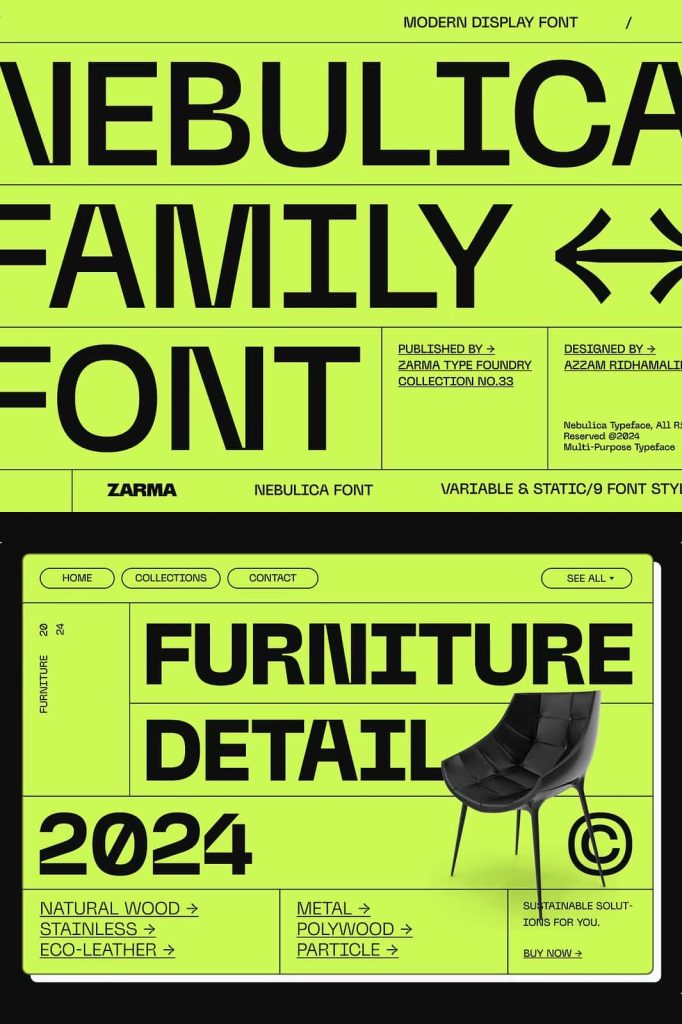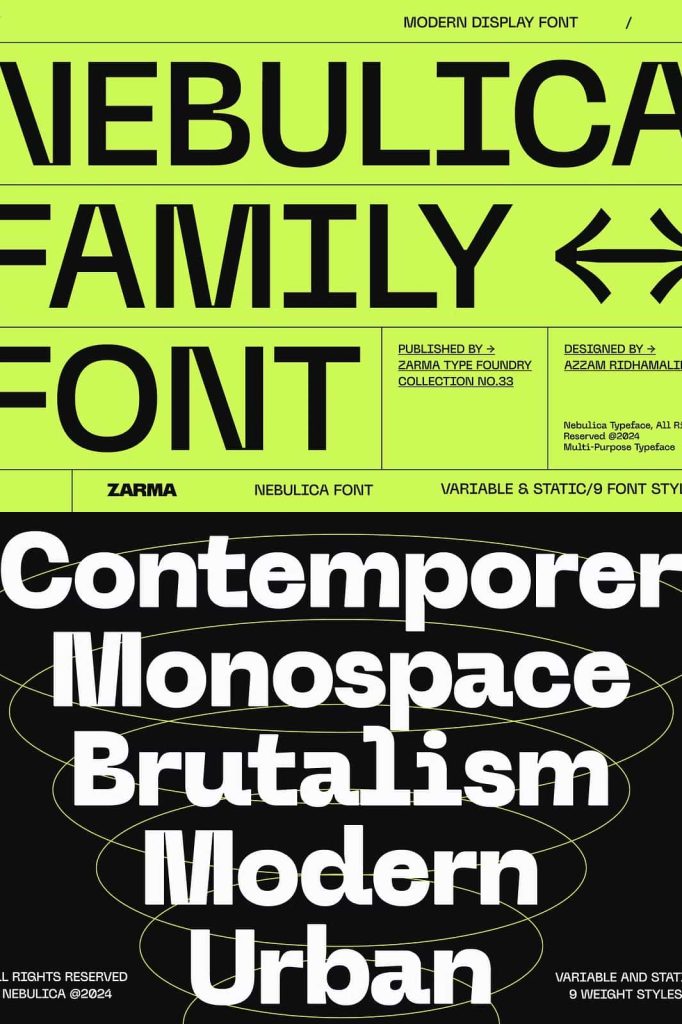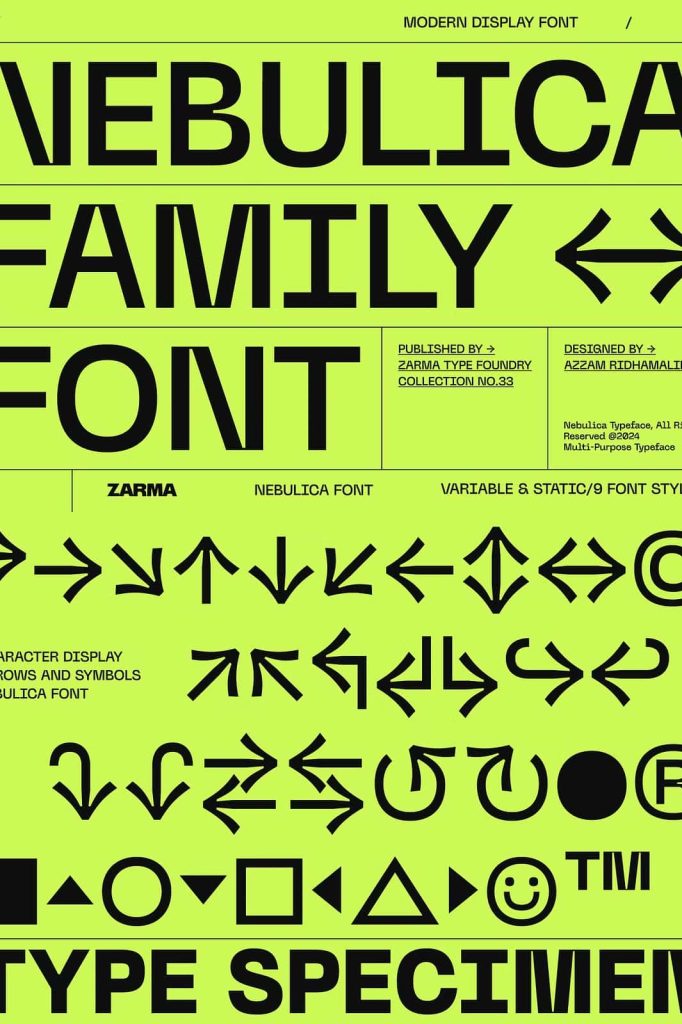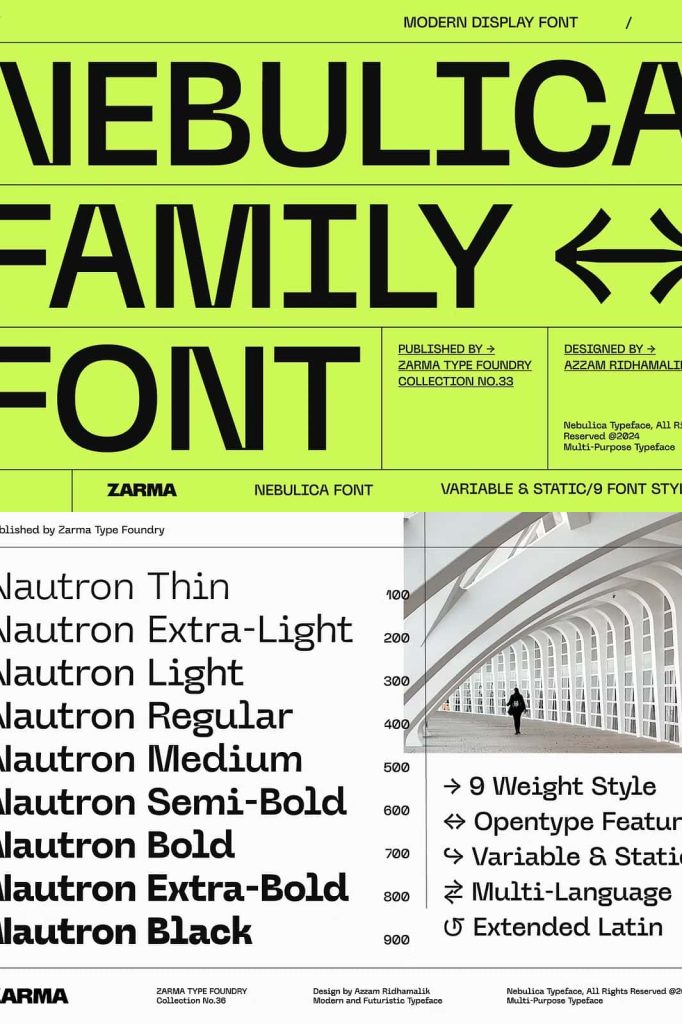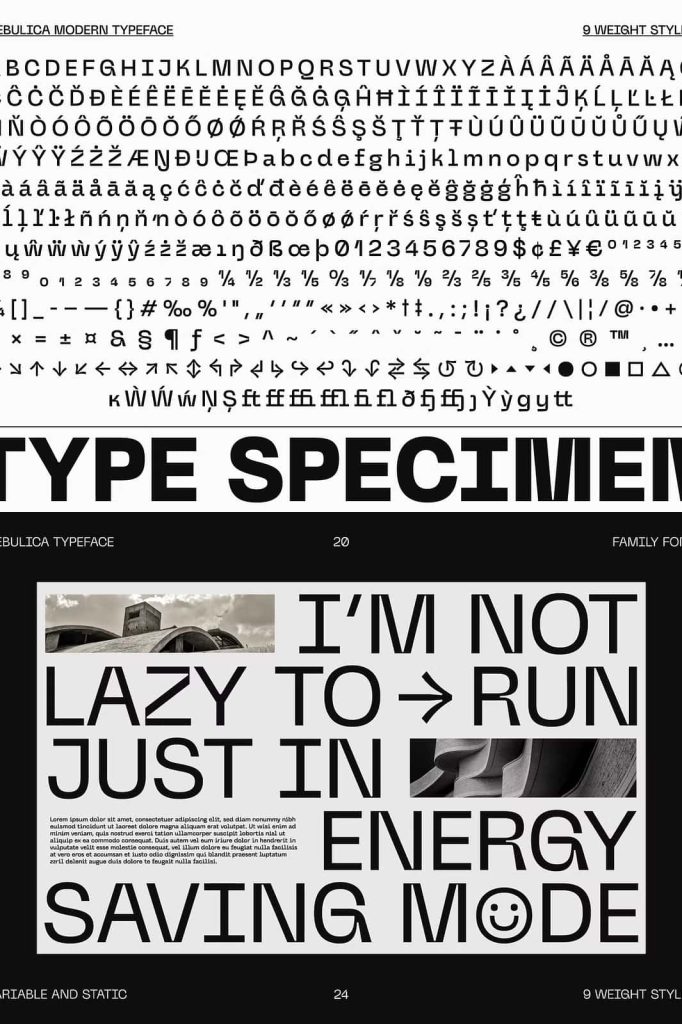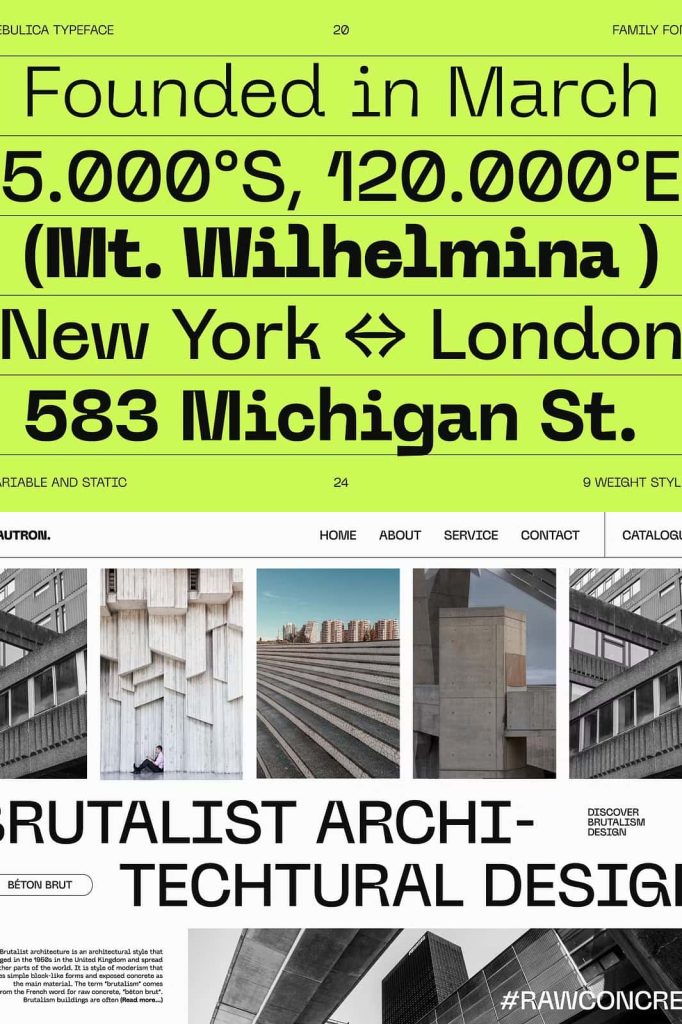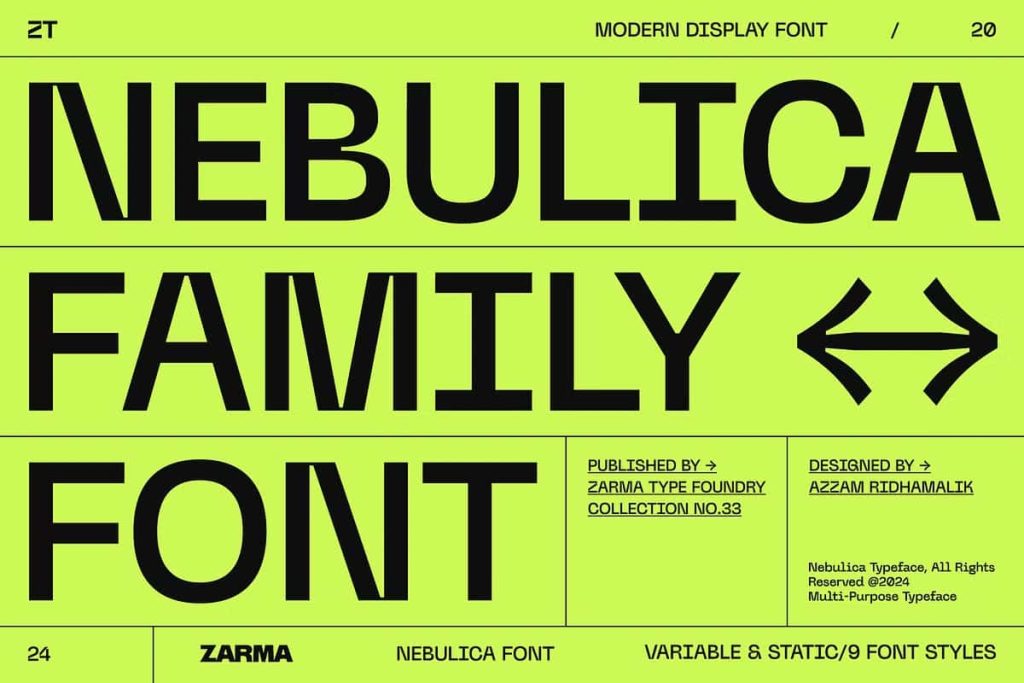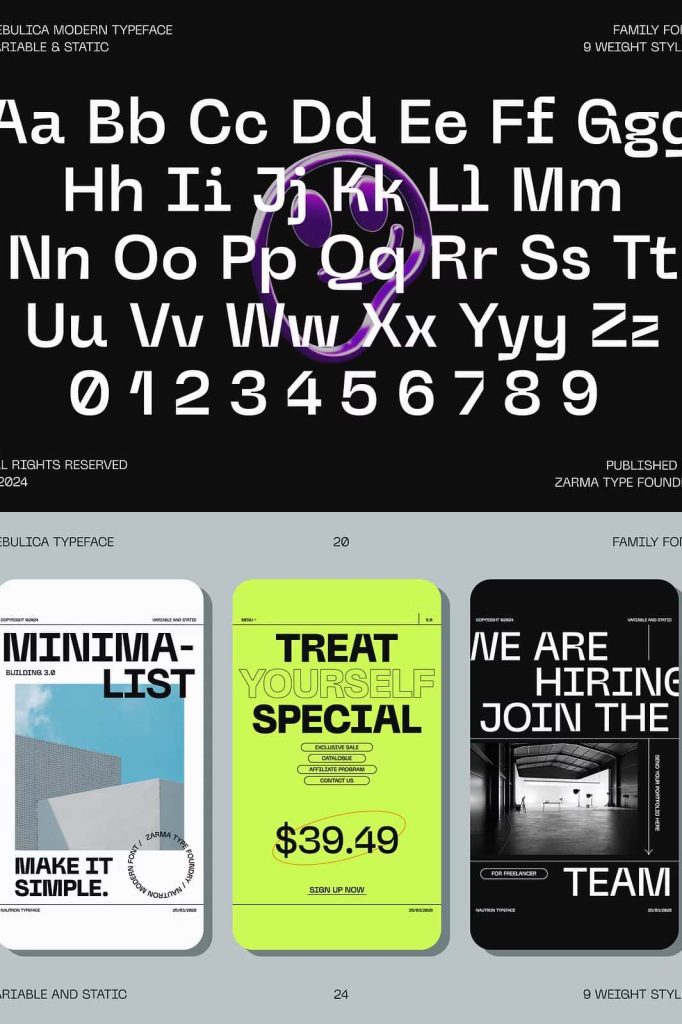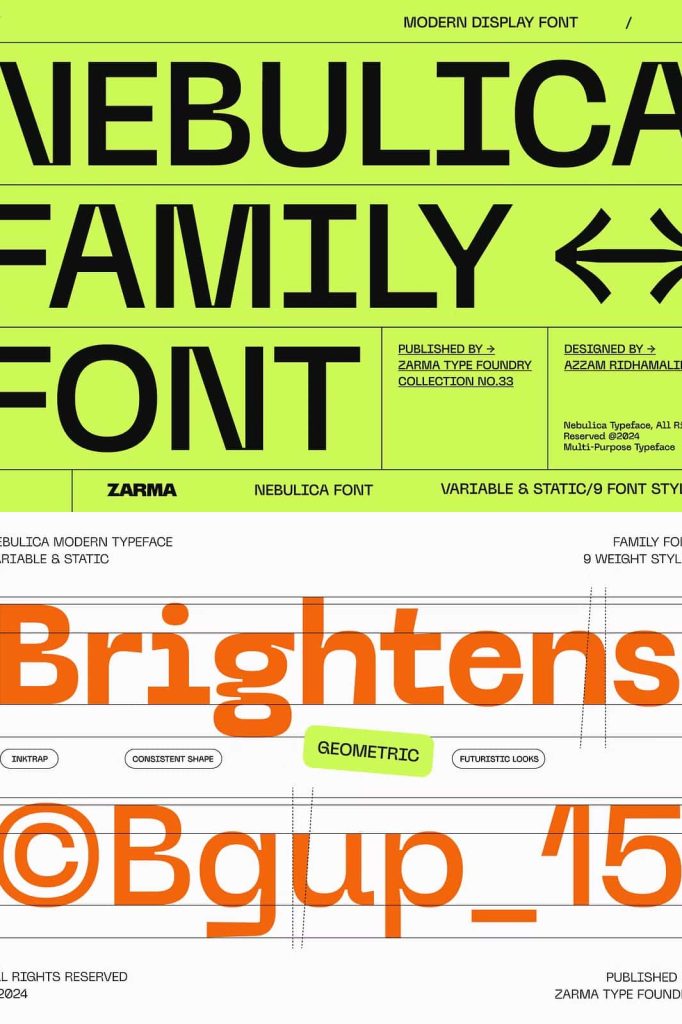
Nebulica Experimental Display Typeface
A Modern Experimental Font with Urban Influence
Nebulica is an experimental typeface designed to push the boundaries of contemporary typography. By seamlessly blending geometric precision with the structured logic of monospace design, Nebulica creates a distinctly modern aesthetic that feels innovative, confident, and visually striking. This fusion allows the font to stand apart from traditional type systems while maintaining clarity and usability.
Inspired by modern urban design trends, Nebulica reflects the visual language of architecture, industrial signage, and digital interfaces. Its letterforms feel engineered yet expressive, making the typeface an excellent choice for designers who want to communicate progress, technology, and forward-thinking ideas through typography.
Geometric Structure Meets Monospace Precision
At its core, Nebulica combines the clean, mathematical structure of geometric typefaces with the consistent rhythm of monospace fonts. This hybrid approach creates uniform spacing and alignment while preserving strong visual character. Each character occupies a defined space, allowing layouts to feel organized and intentional.
The geometric foundation gives Nebulica a sense of stability and modern clarity. Straight lines, precise angles, and balanced proportions contribute to a cohesive system that performs well across various applications. At the same time, the monospace influence ensures predictable alignment, making the font suitable for both creative and functional design needs.
A Typeface Built for Consistency and Control
Nebulica was designed with consistency in mind. Its monospace-inspired structure allows designers to create clean grids, structured layouts, and modular compositions. This makes it especially effective for digital interfaces, motion graphics, and experimental layouts where alignment and rhythm play a critical role.
Despite its experimental nature, Nebulica remains highly legible. The careful balance between form and function ensures that text remains clear even in complex compositions, allowing designers to experiment without sacrificing readability.
Distinctive Details with Inktraps and Slanted Stems
One of Nebulica’s most defining characteristics is its use of inktraps and slanted stems. These details add both functional and aesthetic value to the typeface. Inktraps improve legibility by preventing ink buildup in print and enhancing clarity at smaller sizes, while also introducing a distinctive visual texture.
The slanted stems add subtle motion and energy to the letterforms. This angled approach breaks away from rigid verticals, giving the font a dynamic and futuristic appearance. These features work together to create a typeface that feels technical yet expressive.
Functional Innovation with Visual Impact
Nebulica’s inktraps and slanted stems are not merely decorative. They serve a practical purpose by improving clarity and performance across different media. Whether used on screens or in print, these features help maintain sharpness and consistency.
This combination of innovation and usability makes Nebulica a powerful tool for designers who want typography that performs as well as it looks. The font supports bold experimentation while remaining grounded in practical design principles.
Ideal for Modern Branding and Experimental Design
Nebulica excels in branding projects that aim to convey modernity, innovation, and urban sophistication. Its unique structure and futuristic details help brands establish a strong visual identity that feels current and distinctive. When used in logos and brand systems, Nebulica communicates confidence and originality.
The typeface also performs exceptionally well in posters, editorial layouts, motion graphics, and digital products. Its experimental nature encourages designers to explore unconventional layouts while relying on the font’s consistent structure to maintain order and clarity.
A Versatile Typeface for Contemporary Designers
Nebulica offers designers a versatile experimental font that adapts to a wide range of creative applications. It works seamlessly across web, print, and interactive environments, making it suitable for modern design workflows. The font pairs effectively with minimalist sans serif or neutral typefaces, allowing its distinctive features to take center stage.
By choosing Nebulica, designers gain access to an experimental geometric monospace font that blends innovation with functionality. It transforms typography into a visual statement, helping creative projects stand out through structure, precision, and modern urban character.